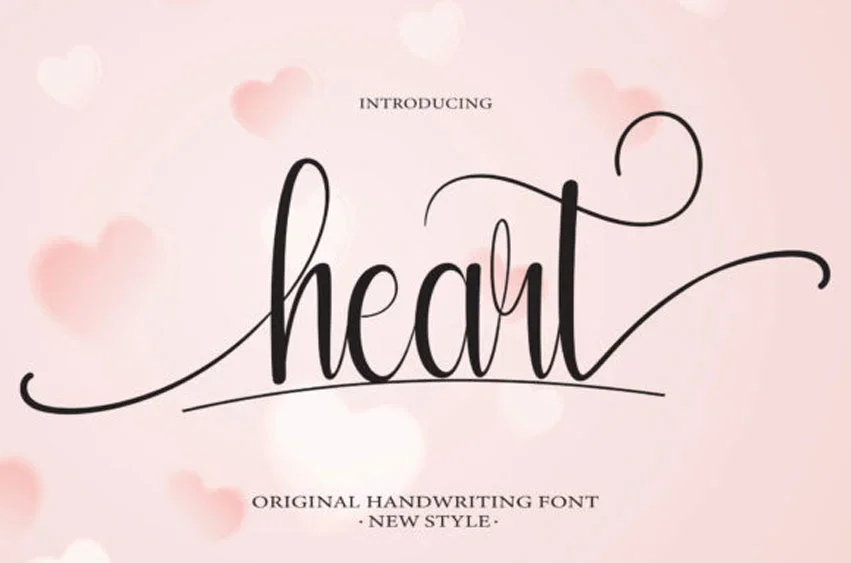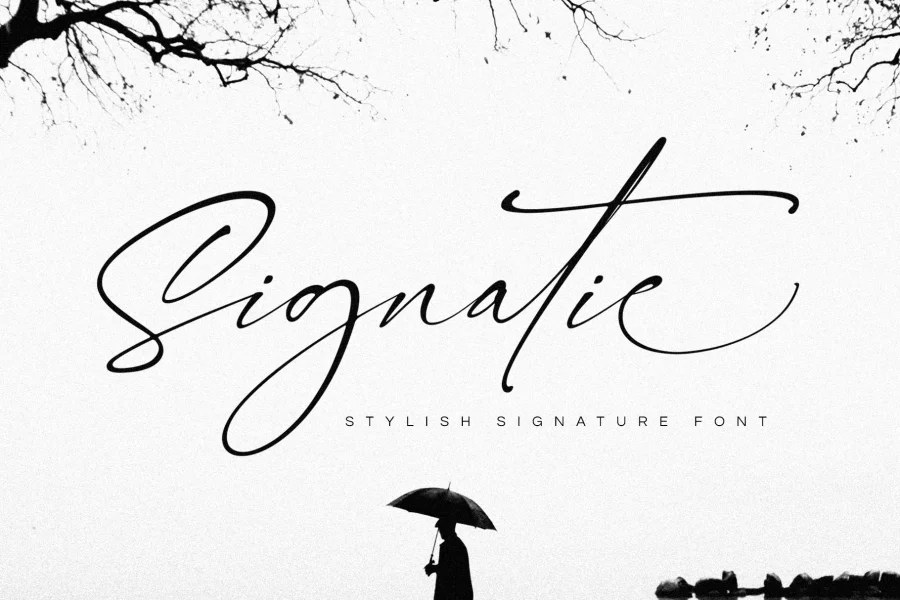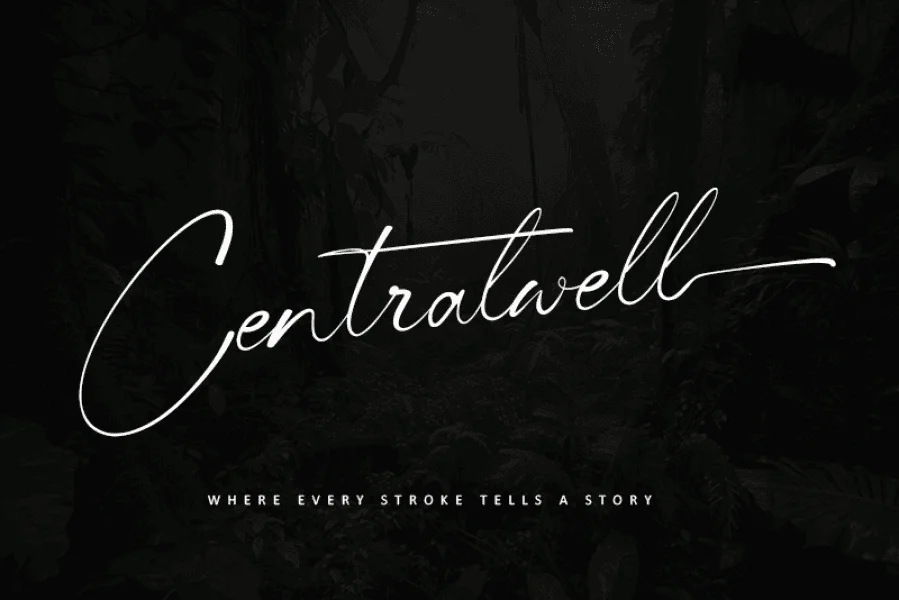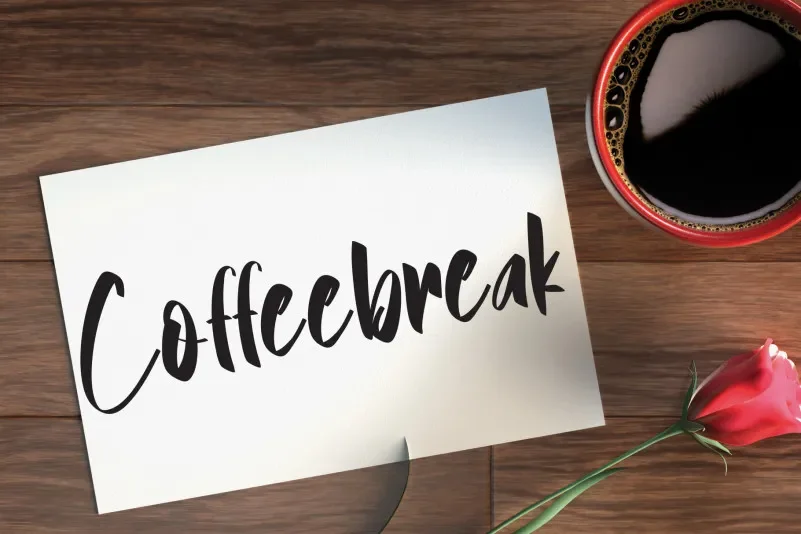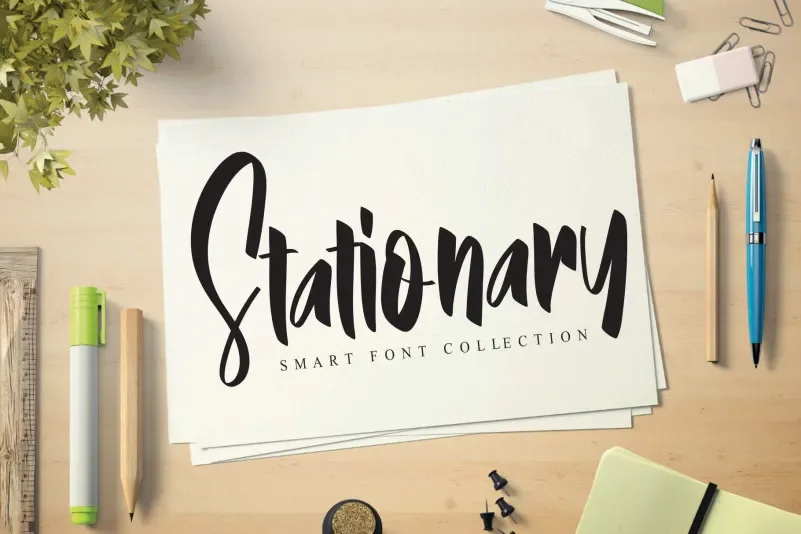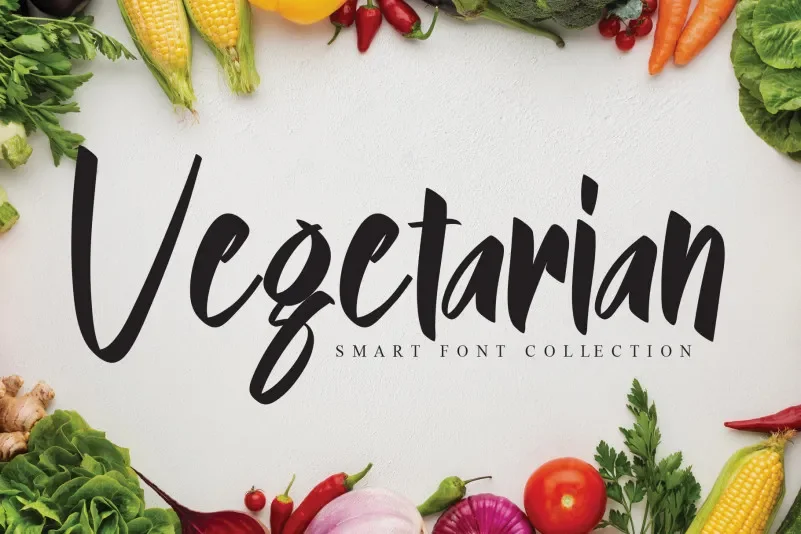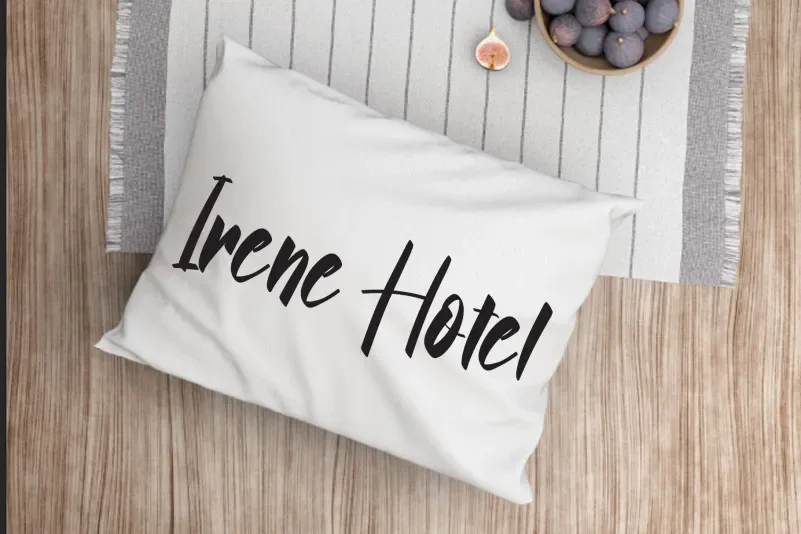
Signature fonts mimic real handwriting like someone carefully penned your name with flair. They’re elegant, flowing, and perfect for adding a personal touch to branding, emails, or invitations. Whether you want informal charm or polished elegance, these fonts give your design a human feel.
Designer: Various (e.g., Rob Leuschke, Khurasan, Vernon Adams, Andikastudio)
Released: Popularized in the 2010s across platforms like FontSpace, Dafont, and Google Fonts
Style: Scripted, signature-style handwriting with swashes and alternates
Feature
Mimic natural cursive with irregular strokes and smooth ligatures
Often include stylistic alternates and decorative swashes
Great for signatures, logos, headers, or email sign-offs
Usually all-caps or mixed-case with personal flair
Signature fonts work wonderfully in branding, blog titles, or digital signatures. To keep legibility, pair them with a simple sans-serif like Raleway or Open Sans. Let the Font add warmth without overwhelming your design.